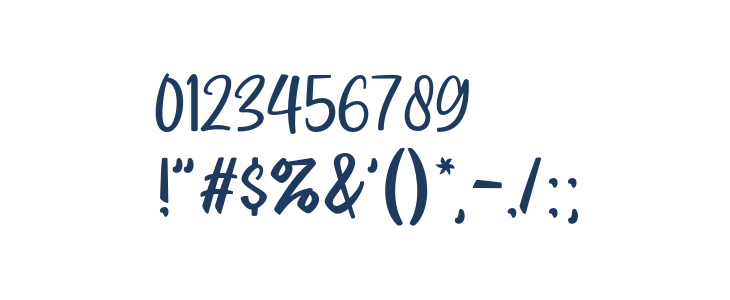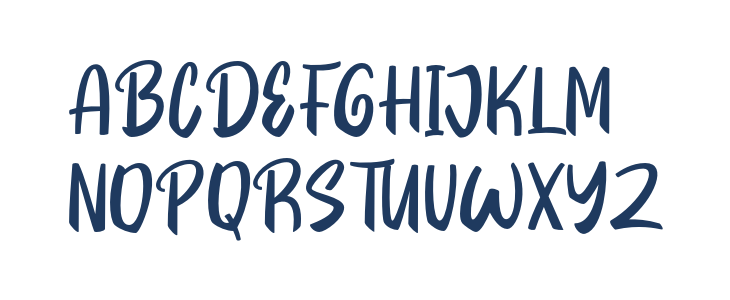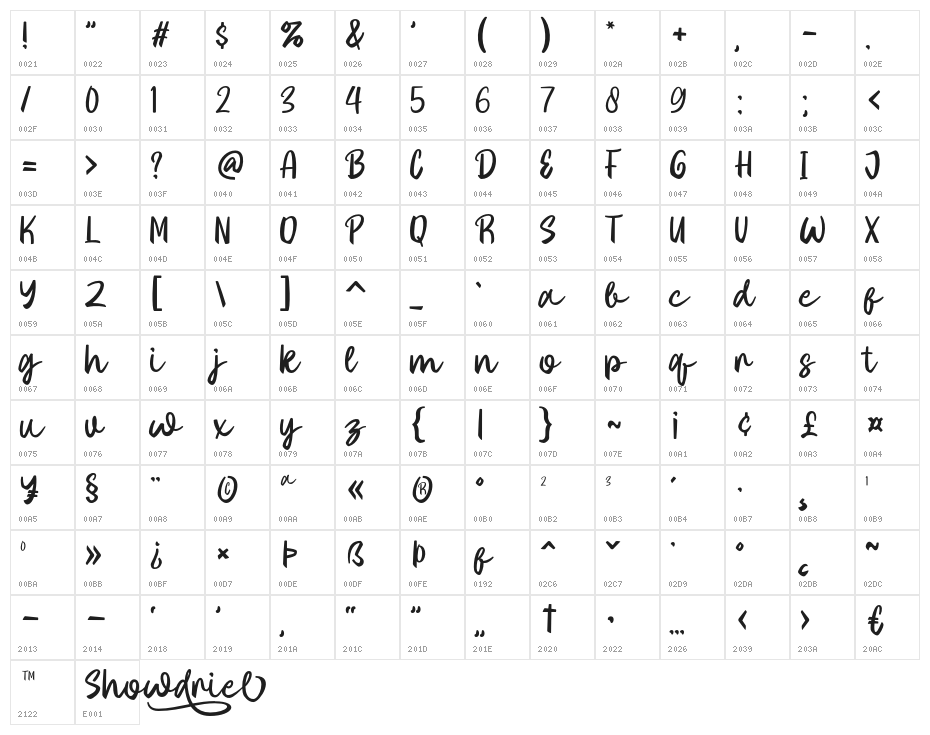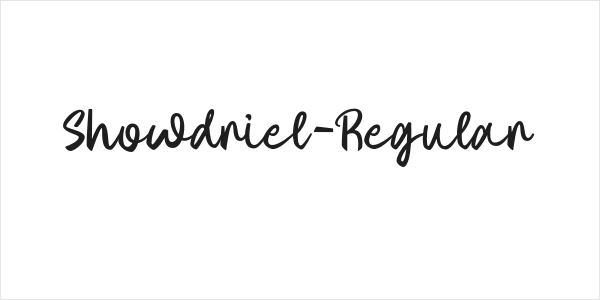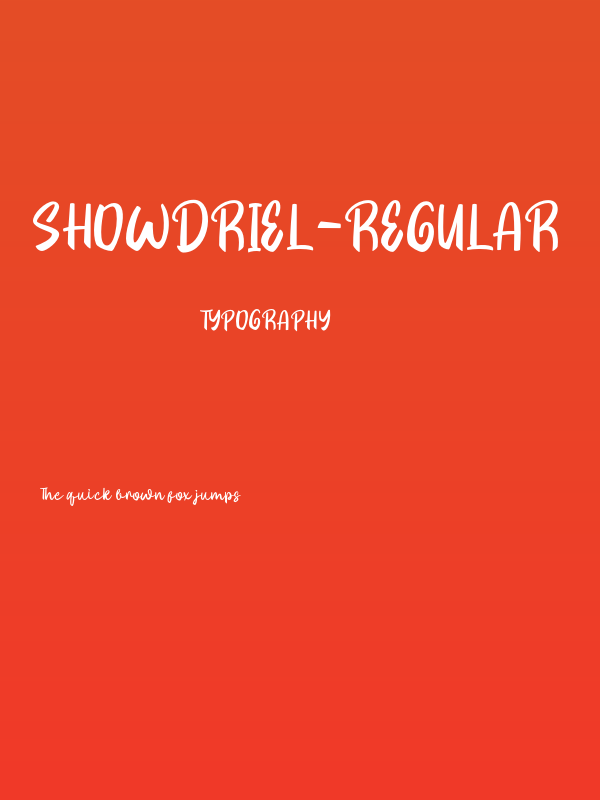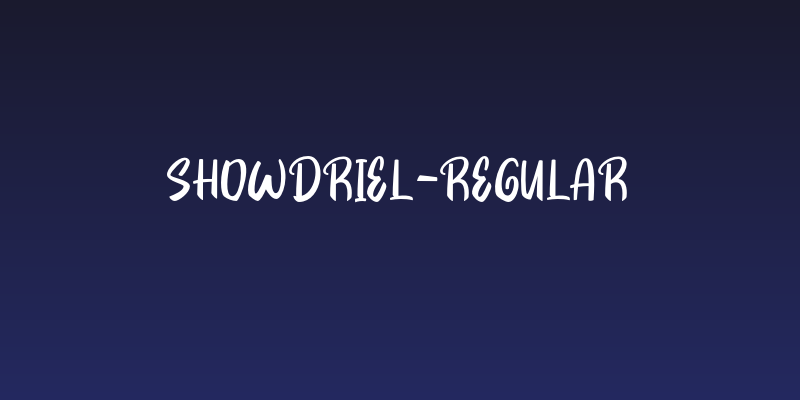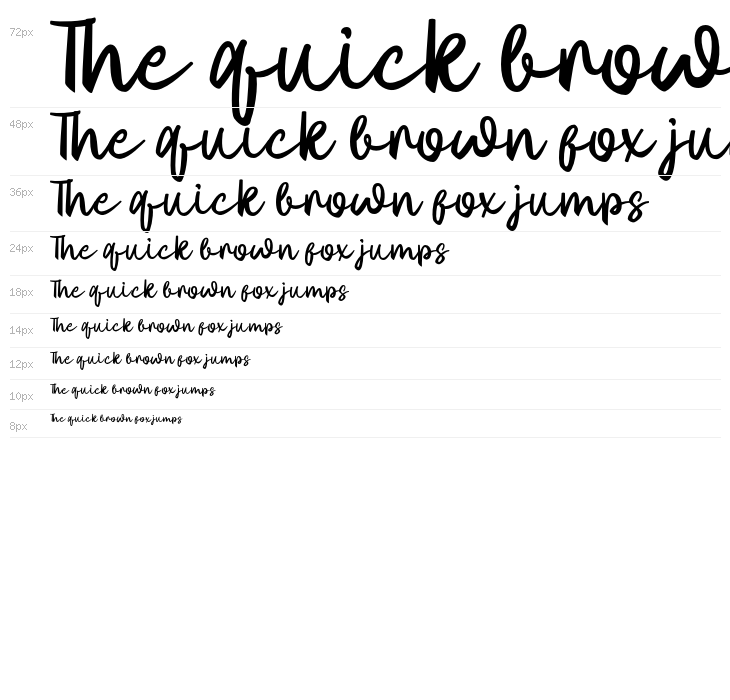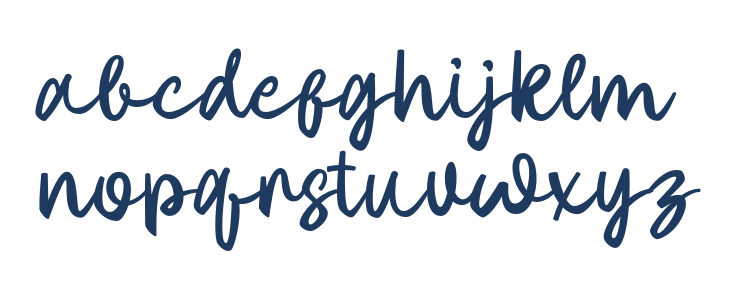
Showdriel-Regular Font
Showdriel-Regular Description
A playful, handwritten script font with smooth, flowing strokes and a casual, friendly appearance. The characters are slightly slanted and feature rounded terminals, giving it an informal and approachable feel.
| Overall Style | Decorative, Casual, Playful |
| Use Case | Headlines, Logos, Short text, Decorative purposes |
| Proposed Projects | Greeting cards, invitations, social media graphics, branding, posters, quotes. |